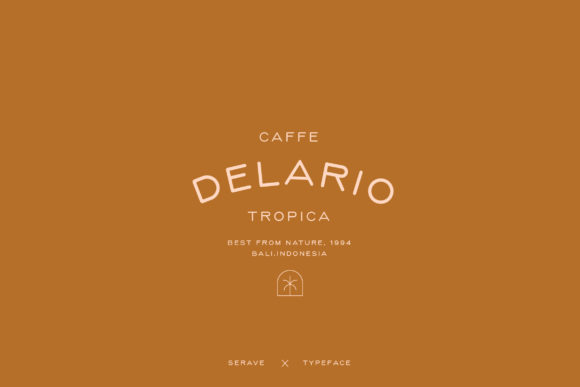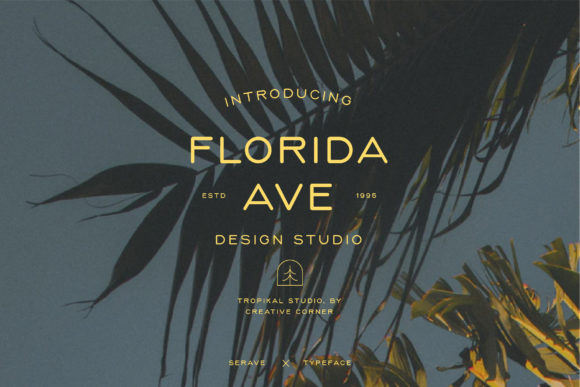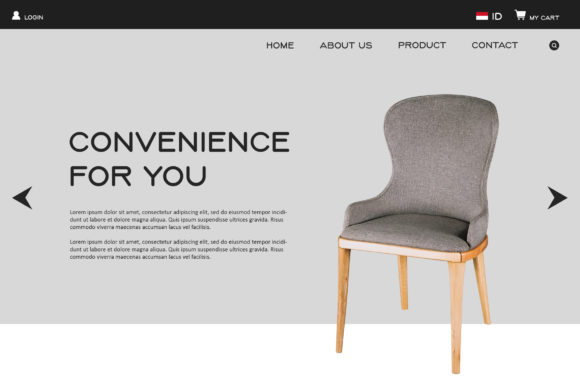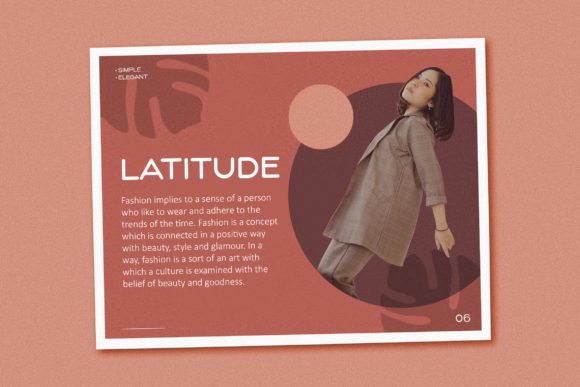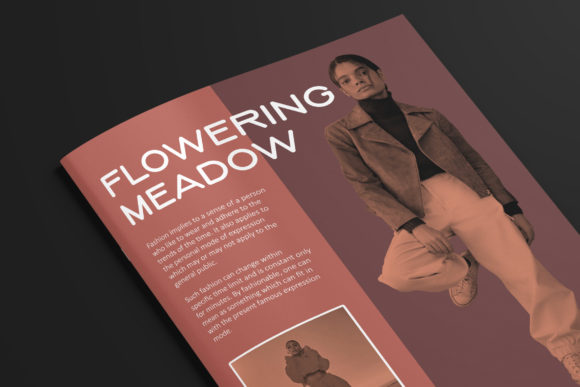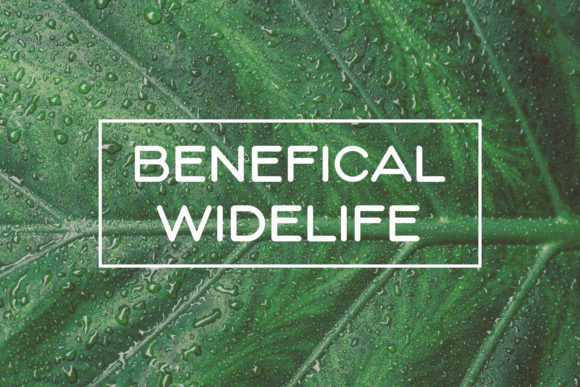
Introduction to Serave Font
Have you ever stared at a blank page, wondering what font to choose for your next design project? The blank slate can be intimidating, but sometimes all it takes is a single inspiration to spark creativity. For designers, finding the perfect font can be the difference between a mediocre and a masterpiece.
That’s where the Serave Font comes in – a simple yet modern sans serif font that’s perfect for any creative project. Whether you’re designing a food menu, poster flyer, or print, Serave Font’s clean lines and minimalistic design will elevate your work to the next level. With its high-quality design and transparent background, this font is a valuable resource for designers looking to take their work to new heights.
Key Features of Serave Font
- High-quality font suitable for creative projects, available for free download.
- Features a transparent background, making it ideal for use on various backgrounds.
- Designed to be highly legible and visually appealing, with a unique character set.
- Includes a range of font sizes and styles to cater to different design needs.
- Suitable for use in a variety of design resources, from logos to digital displays.
Honest Review: Serave Font
As a designer, I’m always on the lookout for high-quality design resources to elevate my creative projects. The Serave Font is one such find that has caught my attention.
What works well with the Serave Font is its clean and modern aesthetic. The font is highly versatile, making it perfect for a wide range of design applications, from logos and branding to digital products and marketing materials.
- ✨ High-quality design with a unique character set
- ✨ Supports various languages and scripts
- ✨ Offers a transparent background, ideal for layered designs
However, I’ve noticed a few limitations with the Serave Font:
- ⚠️ Limited font size range, which may require adjustments for certain design requirements
- ⚠️ Some characters may not be as bold as others, affecting overall consistency
Despite these limitations, the Serave Font remains a valuable addition to my design arsenal. Its free download feature makes it an attractive option for designers on a budget. Overall, I’m impressed with the Serave Font’s performance and would recommend it for any creative project.
Common Use Cases for Serave Font
Serave Font is commonly used in various creative projects, including:
- Brochure design
- Infographic design